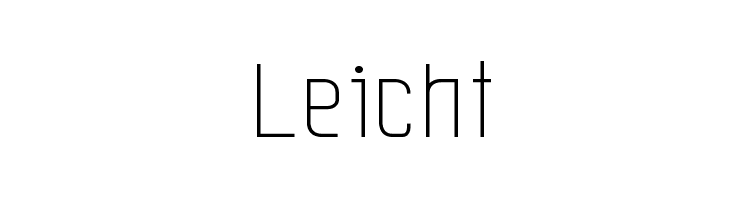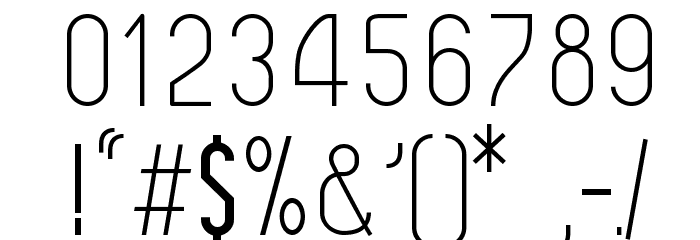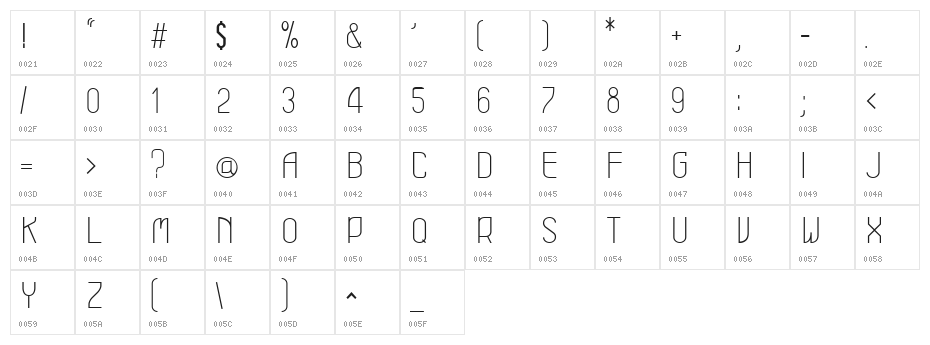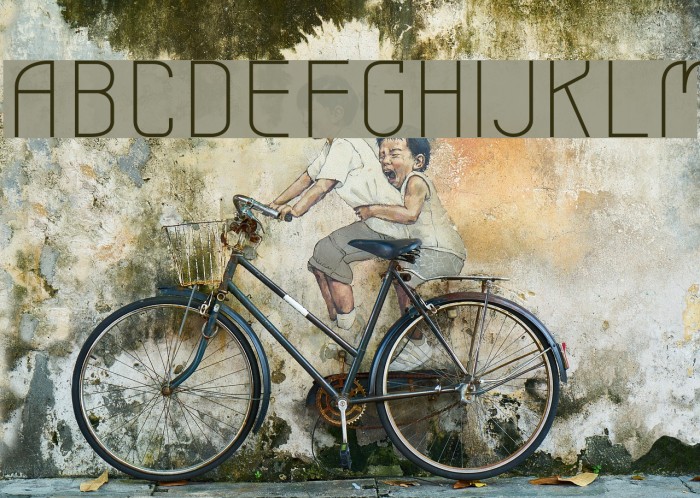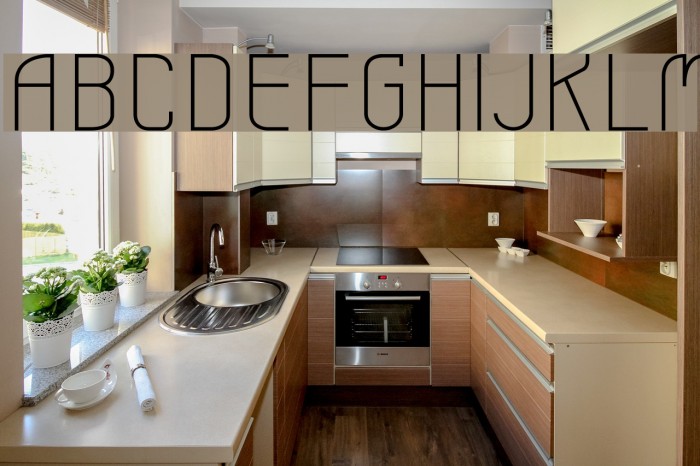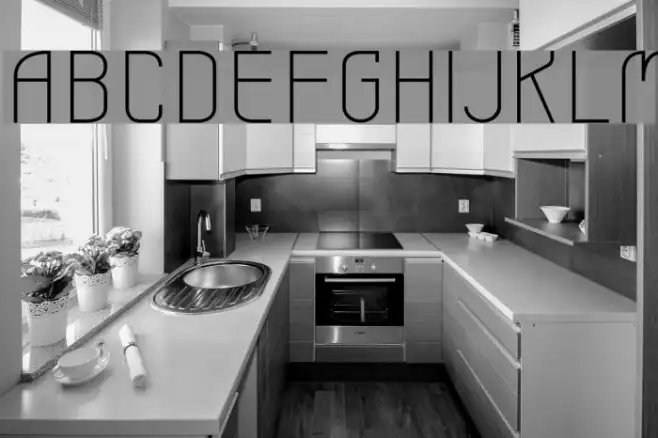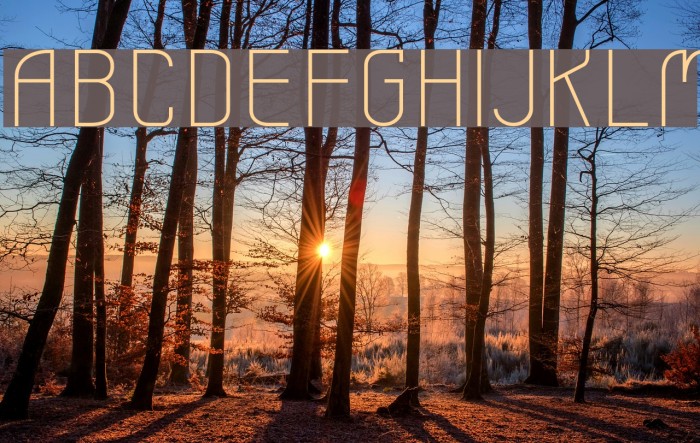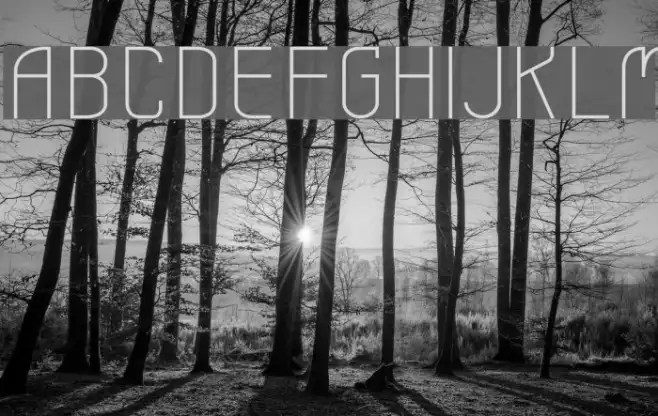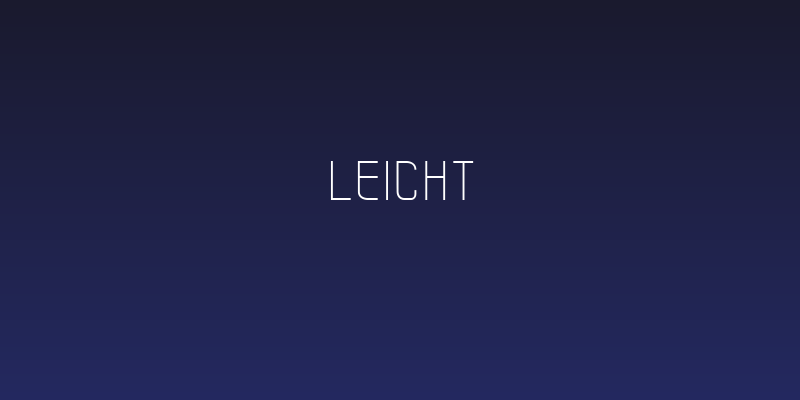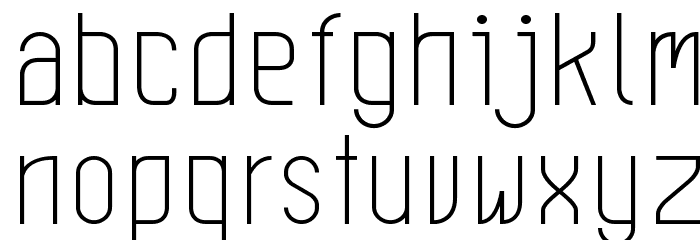
Leicht Font
Leicht Description
This font features a clean and modern design with a geometric structure. The characters are composed of straight lines and curves, creating a minimalist and contemporary appearance. The uppercase letters are uniform in height, while the lowercase letters maintain a consistent baseline, enhancing readability. The numerals are distinct and align well with the overall style, making them suitable for various applications. Special characters are included, offering versatility for different design needs. The font's simplicity and clarity make it ideal for digital and print media, providing a professional and polished look.
| Proposed Projects | Ideal for branding, web design, editorial layouts, and advertising materials. |